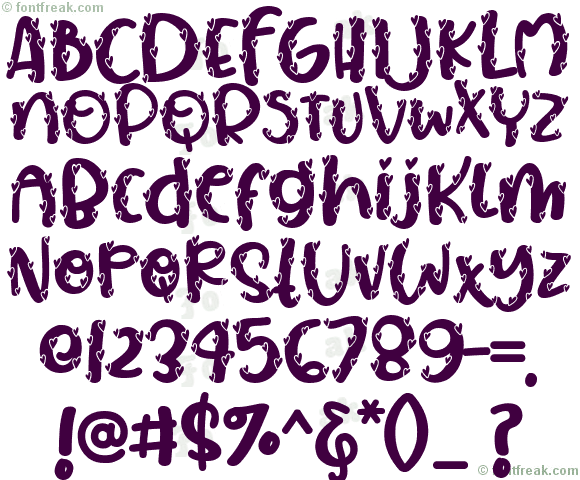
Sweaty Heart
The Sweaty Heart font by Situjuh Nazara is a delightful display typeface that embodies a playful and whimsical character. This font features a unique handwritten style, characterized by its irregular, organic strokes that evoke a sense of warmth and approachability. The stroke weight varies throughout the letters, giving it an animated feel, while the decorative heart motifs seamlessly integrated into the characters enhance its charm and creativity. The spacing is thoughtfully designed to maintain legibility, making it suitable for various applications.
Ideal for a range of creative projects, the Sweaty Heart font excels in contexts that call for a personal touch. It is particularly well-suited for wedding invitations, where its romantic flair can set the tone for a special day. Additionally, this font is a fantastic choice for greeting cards, allowing for a heartfelt message to be conveyed with style. Restaurant menus can benefit from its inviting aesthetic, drawing in customers and adding a friendly vibe to the dining experience. Content creators and social media marketers will also find the Sweaty Heart font useful for crafting engaging graphics and promotional materials that resonate with their target audience.
The intended audience for this font includes graphic designers, small business owners, and content creators who are looking to infuse their projects with a distinctive and heartwarming style. The Sweaty Heart font stands out not only because of its charming visual characteristics but also due to its versatility and emotional appeal. Whether you’re creating a memorable invitation or designing eye-catching content, this font serves as a perfect companion. Don't miss out on the opportunity to enhance your designs with the Sweaty Heart font free download, an exceptional choice for those seeking to add a playful yet polished touch to their work.